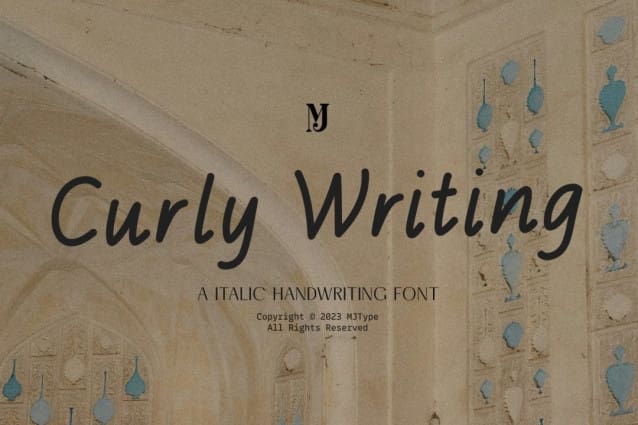
Curly Writing Font
Curly Writing Font is a simple and friendly handwritten font. Its natural and unique style makes it incredibly fitting to a large pool of designs. The only limit is your imagination!